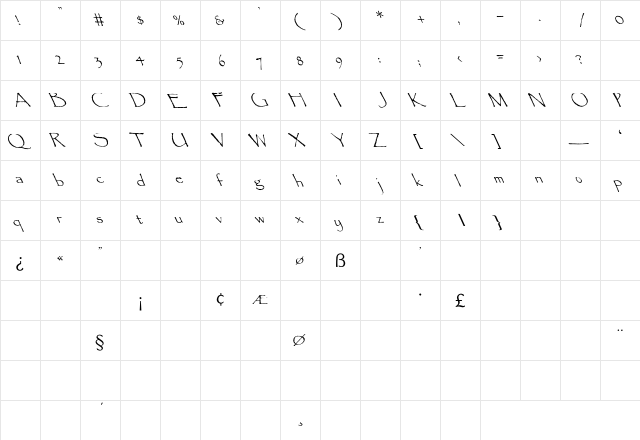
Paradox-Light Lefty Regular
Design Context for Paradox-Light Lefty Typeface
Paradox-Light Lefty takes a measured approach to typography — its balanced proportions and neutral character make it a reliable workhorse for both digital and print work. Its slender proportions lend an understated elegance to any composition.